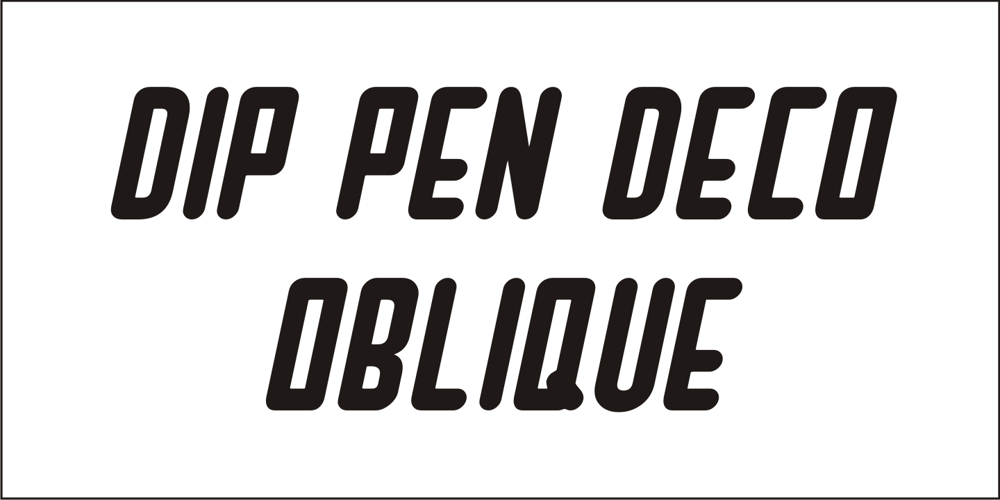
Dip Pen Deco JNL
Dip Pen Deco JNL font
Dip Pen Deco JNL Font Family was designed by Jeff Levine and published by Jeff Levine. Dip Pen Deco JNL contains 2 styles and family package options. The hand lettered title on the cover of the 1938 sheet music for “If It Rains – Who Cares” featured a condensed Art Deco typeface made with a round nib pen. The square shaped characters with rounded corners were a perfect subject for a digital font revival, and are now available as Dip Pen Deco JNL, in both regular and oblique versions.